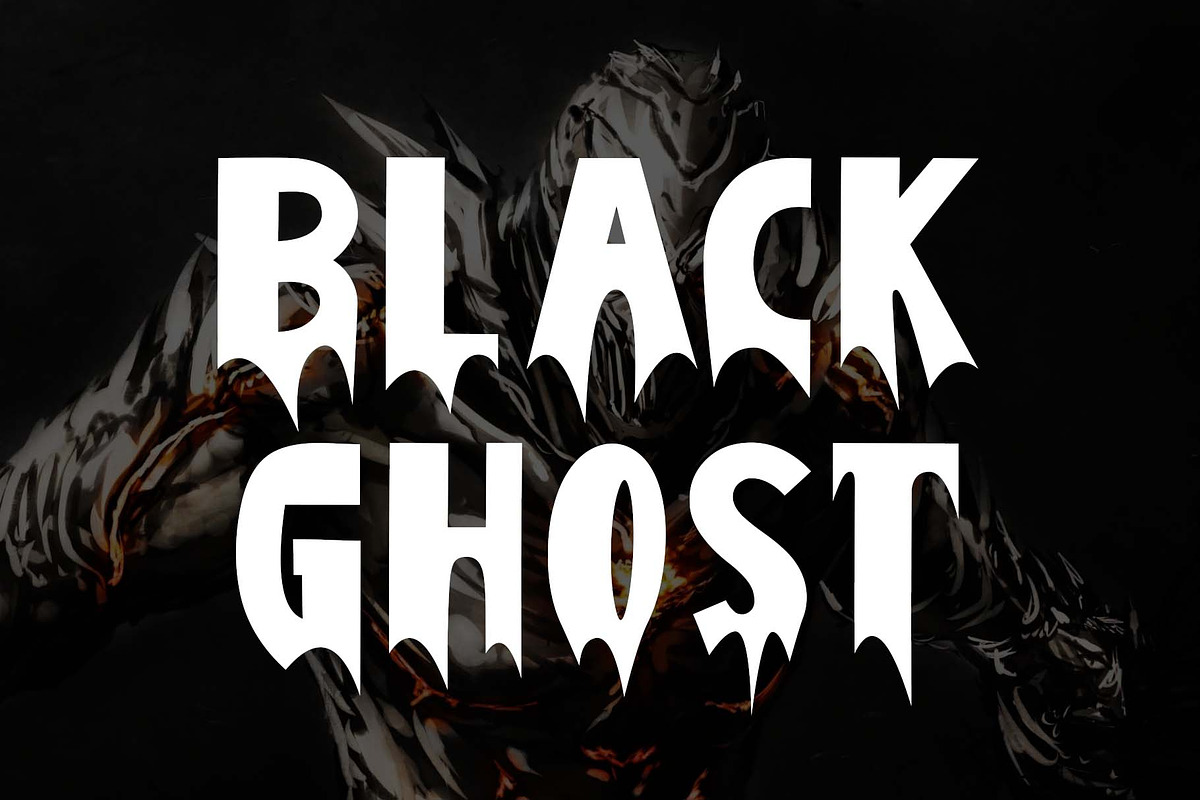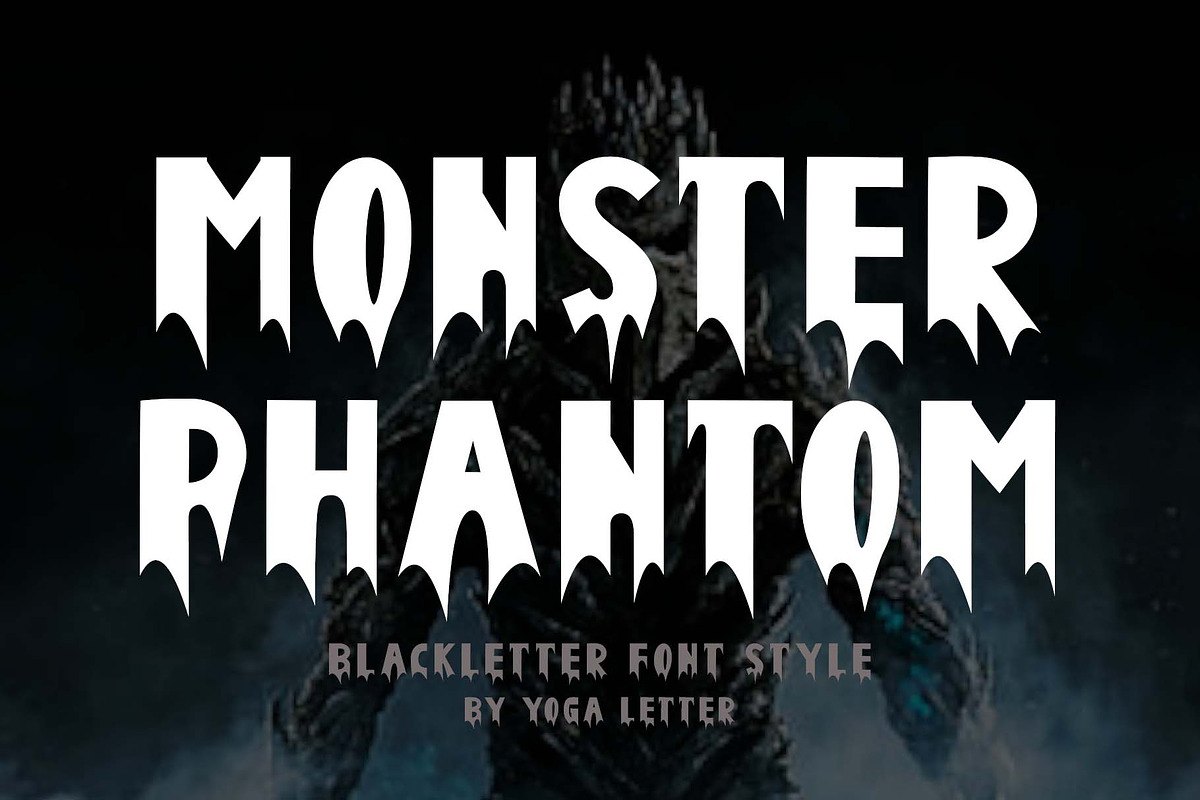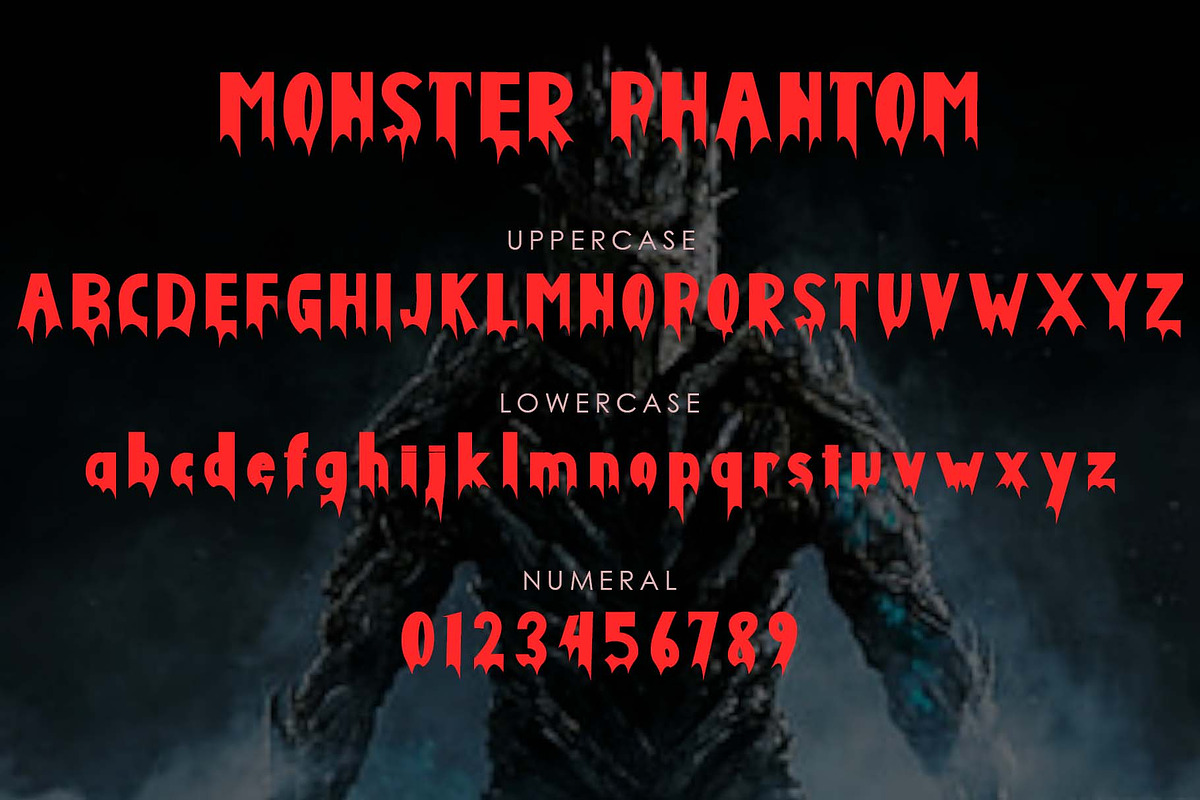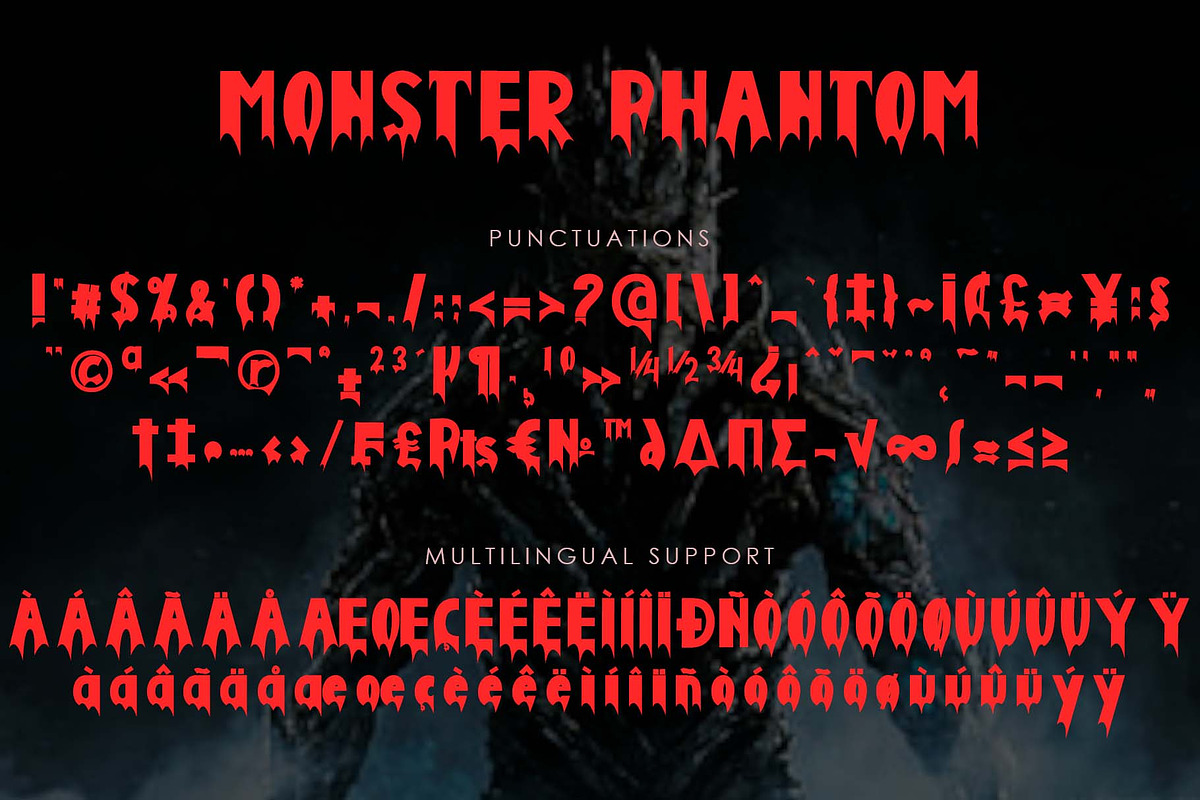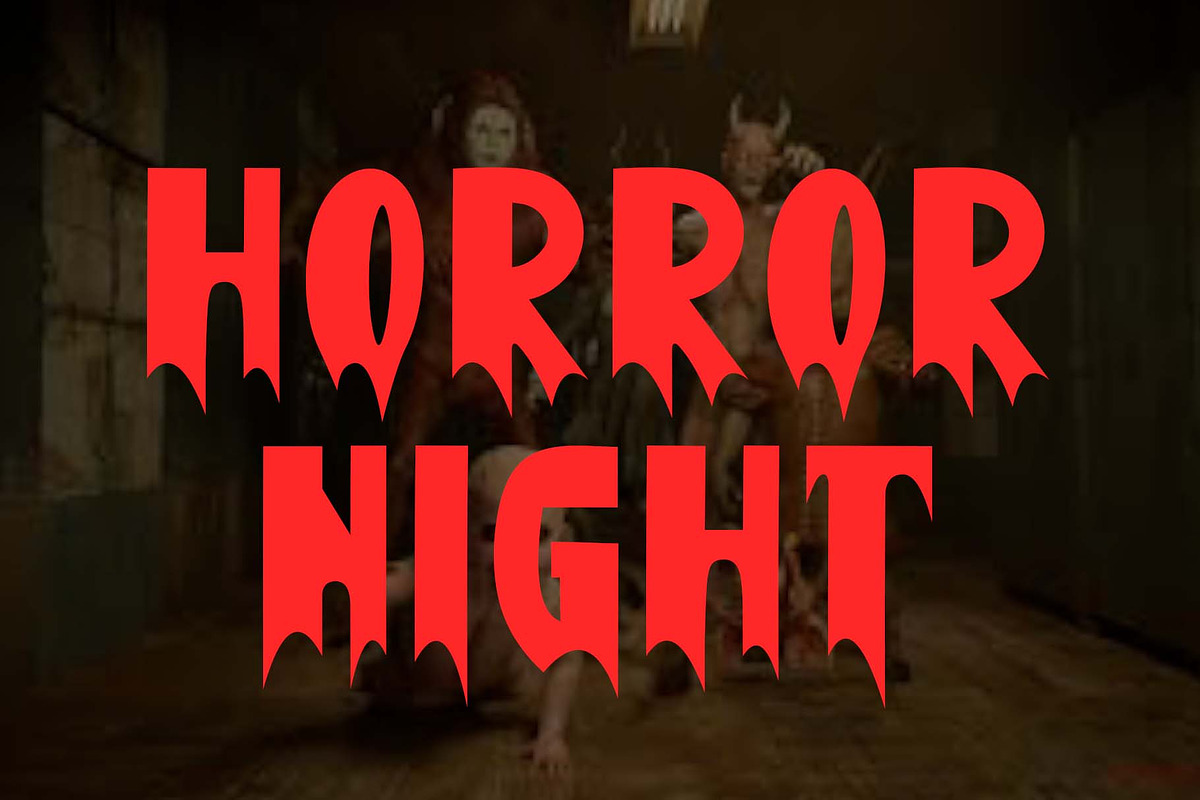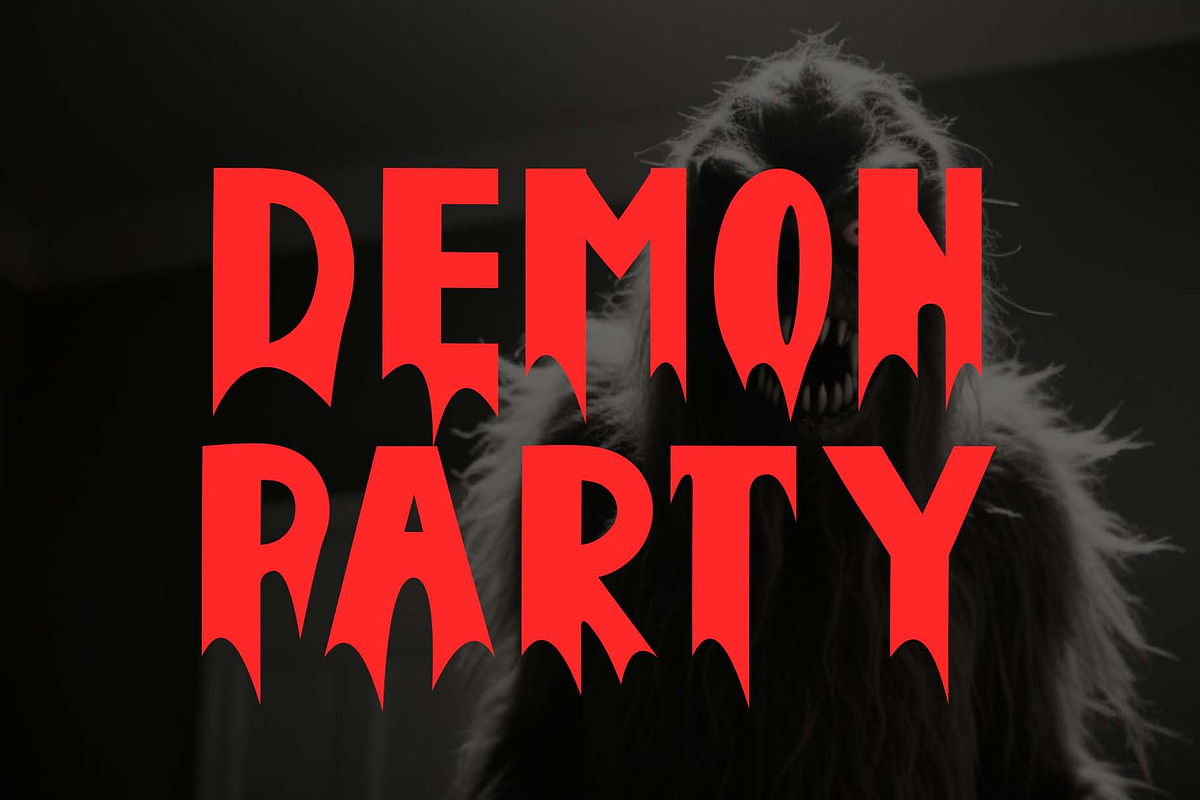
Monster Phantom
"Monster Phantom" is a horror and elegant blackletter font. This font is equipped with uppercase, lowercase, numerals, punctuations and multilingual support. It is very suitable for use in halloween, horror, metal concerts, invitations, posters, stickers, banners, branding, print, fall, christmas, films, comics and others.